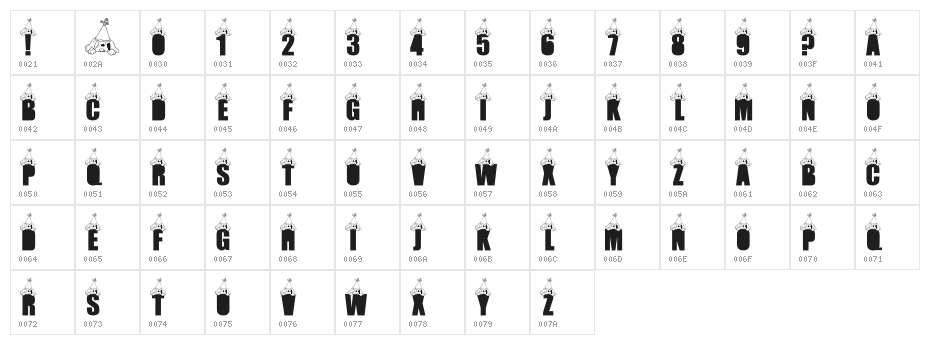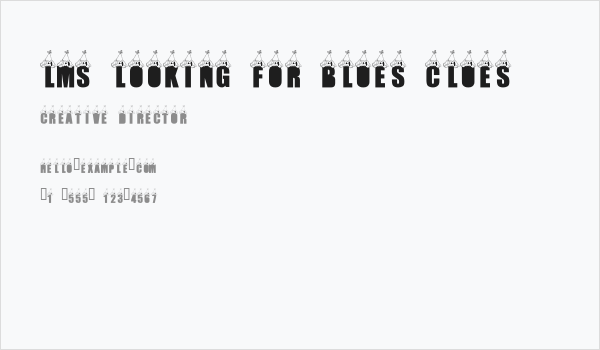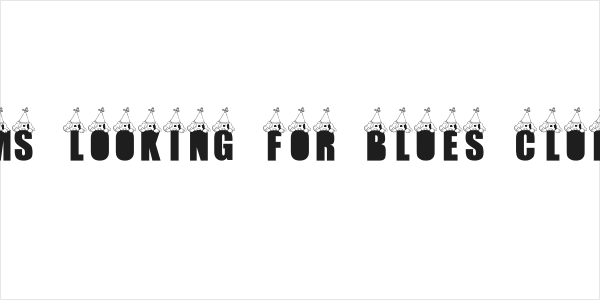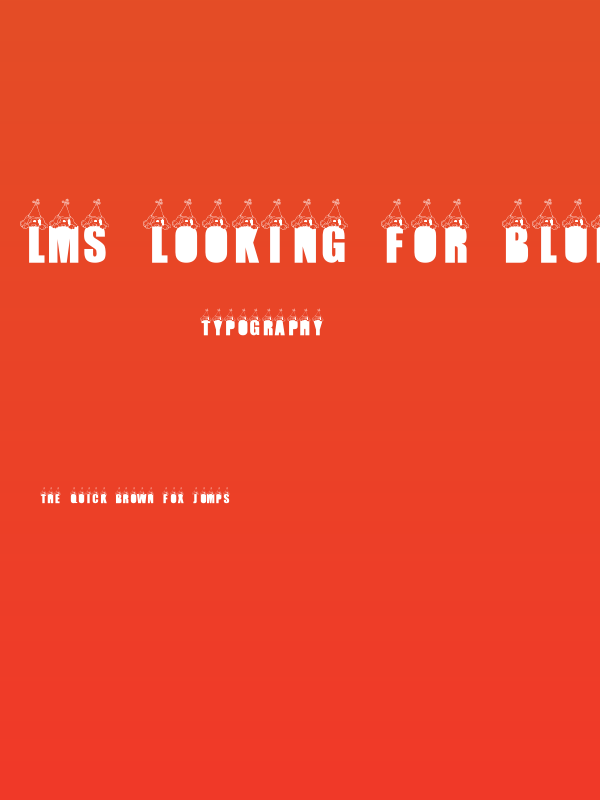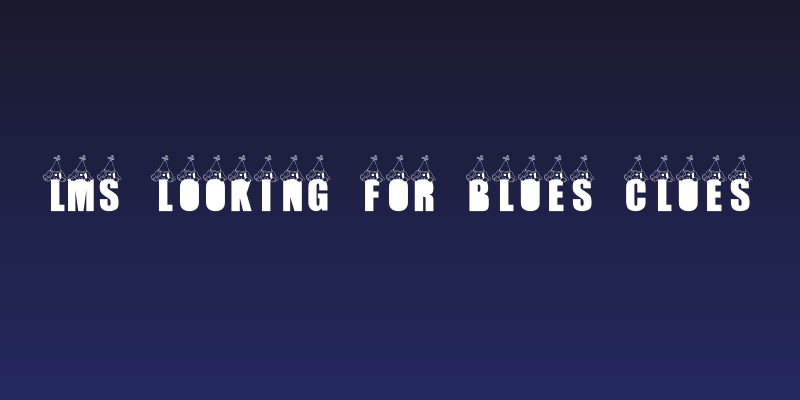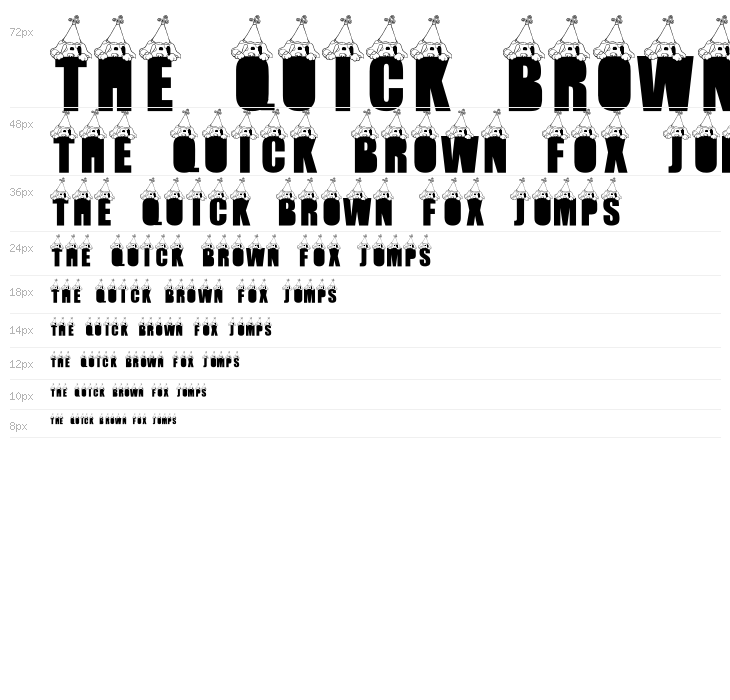
LMS Looking For Blues Clues Font
LMS Looking For Blues Clues Description
This playful and bold font features a unique design where each character is accompanied by a whimsical illustration of a cartoon character peeking over the top. The uppercase letters are solid and robust, giving a strong visual impact, while the lowercase letters maintain the same playful style. The numbers follow the same design pattern, ensuring consistency throughout. This font is perfect for children's projects, adding a fun and engaging element to any design. The overall style is decorative and eye-catching, making it suitable for headlines and titles that require a touch of whimsy.
| Proposed Projects | Ideal for children's books, playful posters, educational materials, and themed party invitations. |